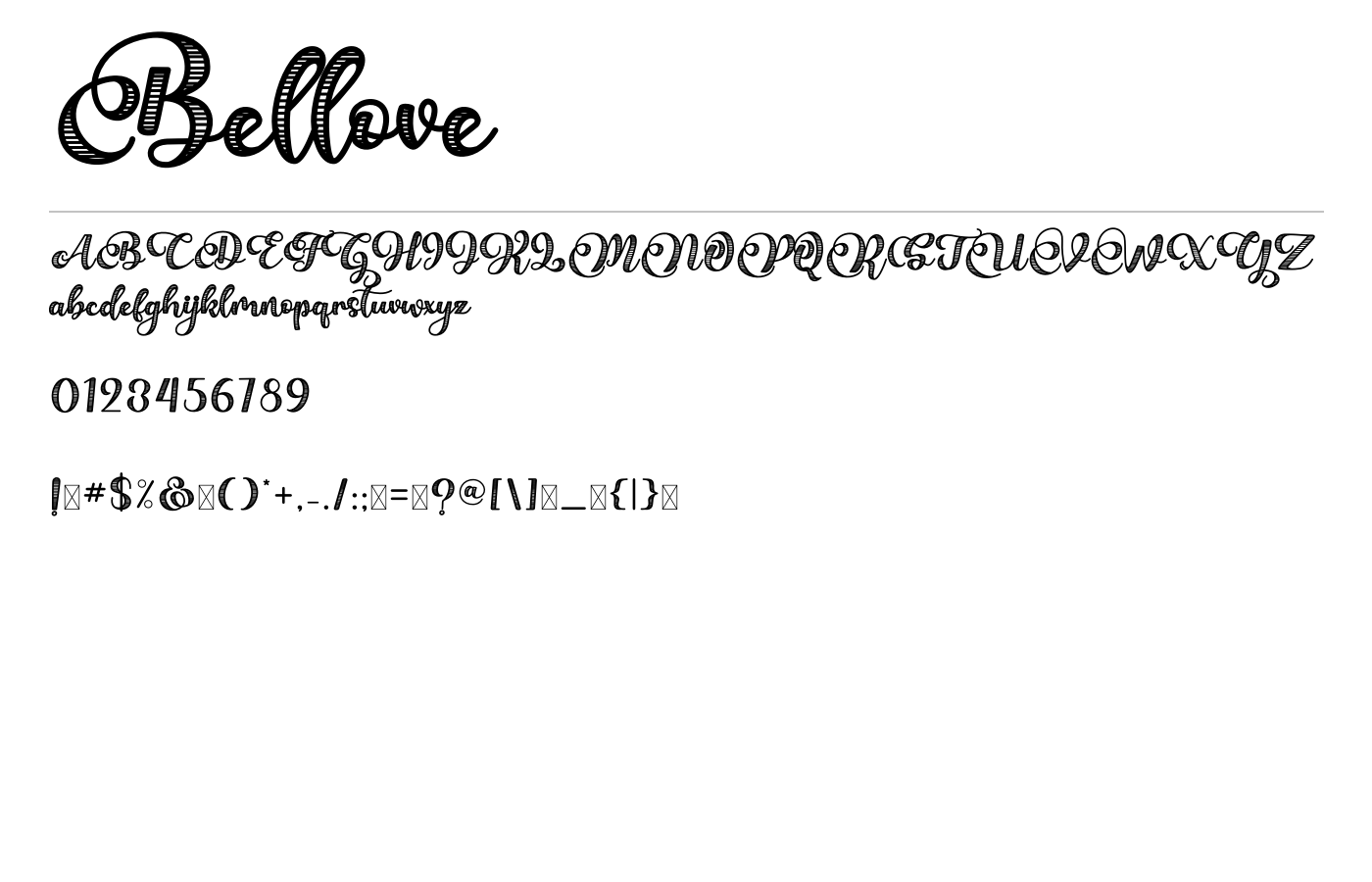
Bellove is a decorative script font with a bold, vintage feel characterized by thick, looping strokes and intricate inner shading that adds depth and texture. Its elegant, ornate letterforms bring a playful yet classy vibe, making it ideal for eye-catching headlines, logos, and invitations where a stylish, handcrafted look is desired. This font works best in creative, artistic contexts that call for personality and visual impact.
Bellove Font
About Bellove Font